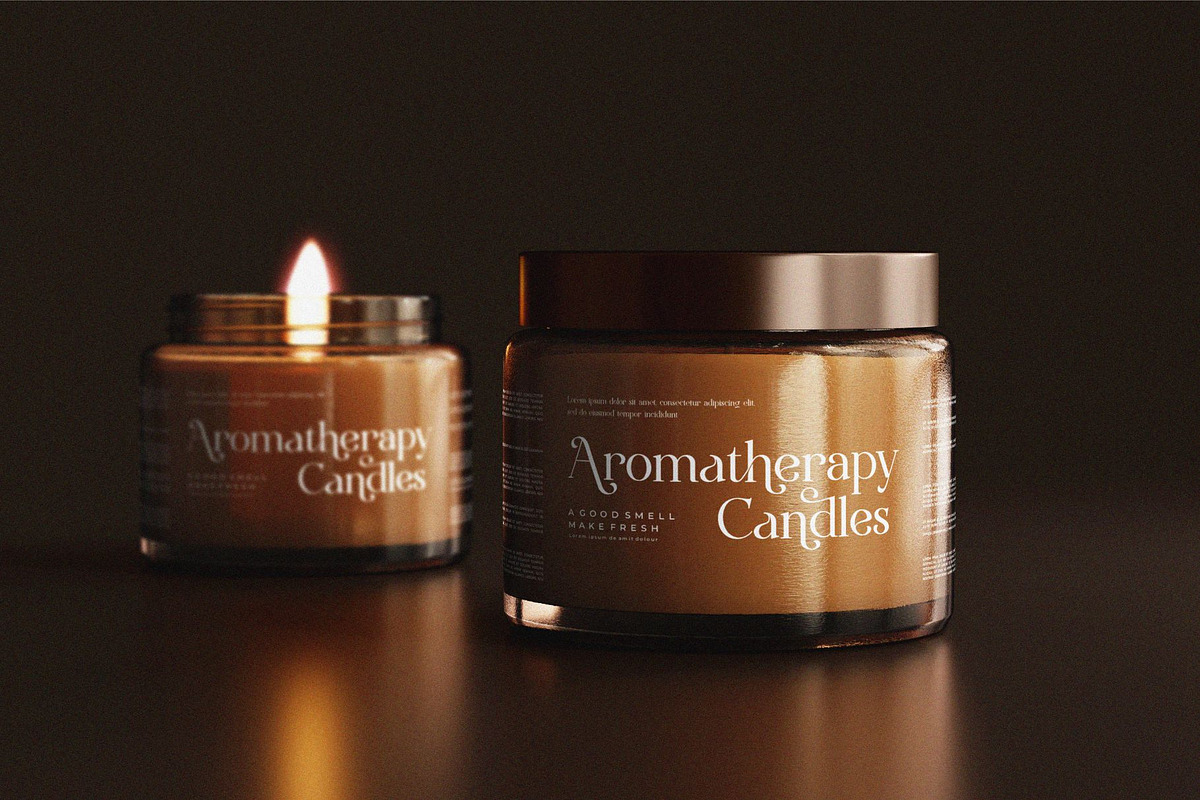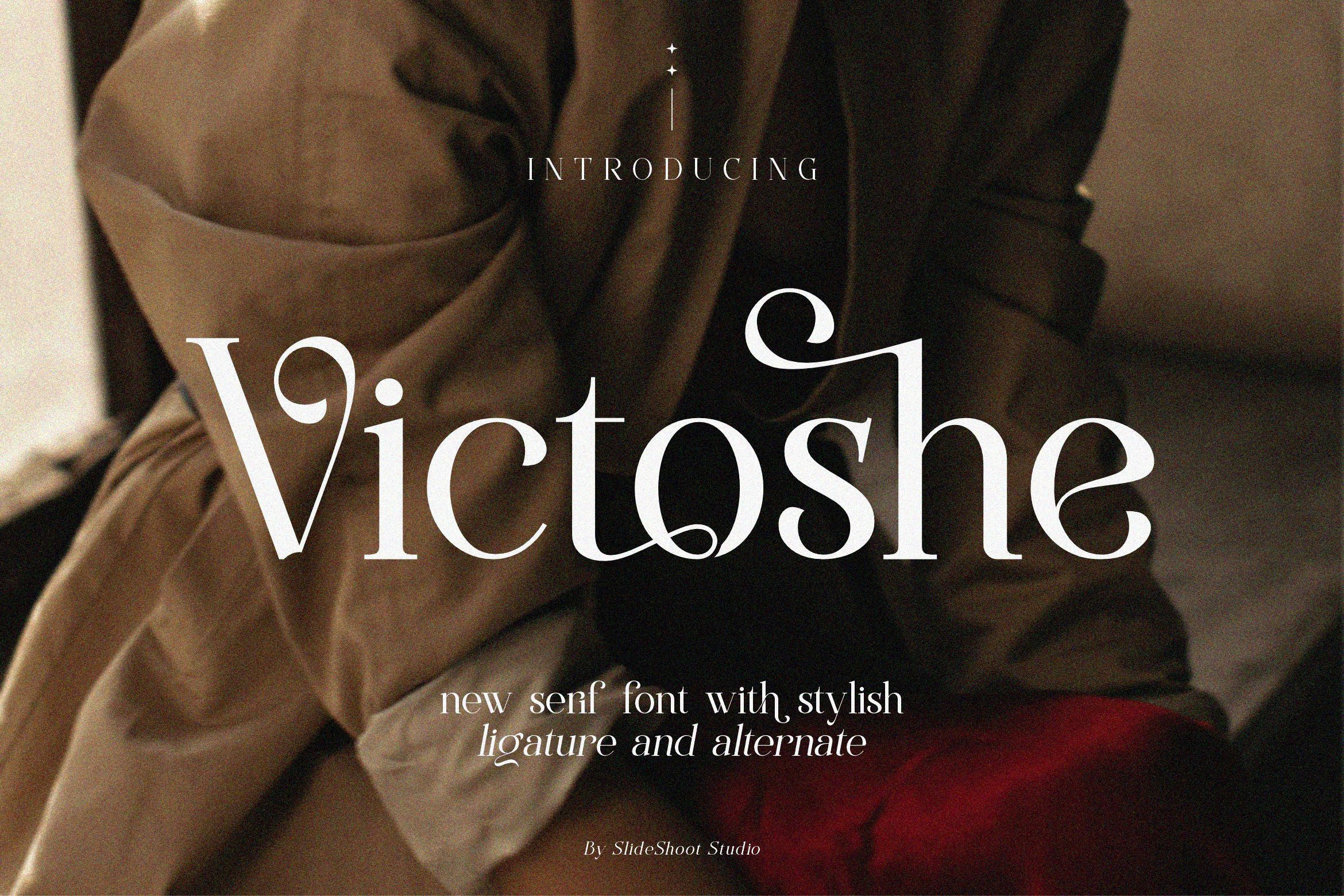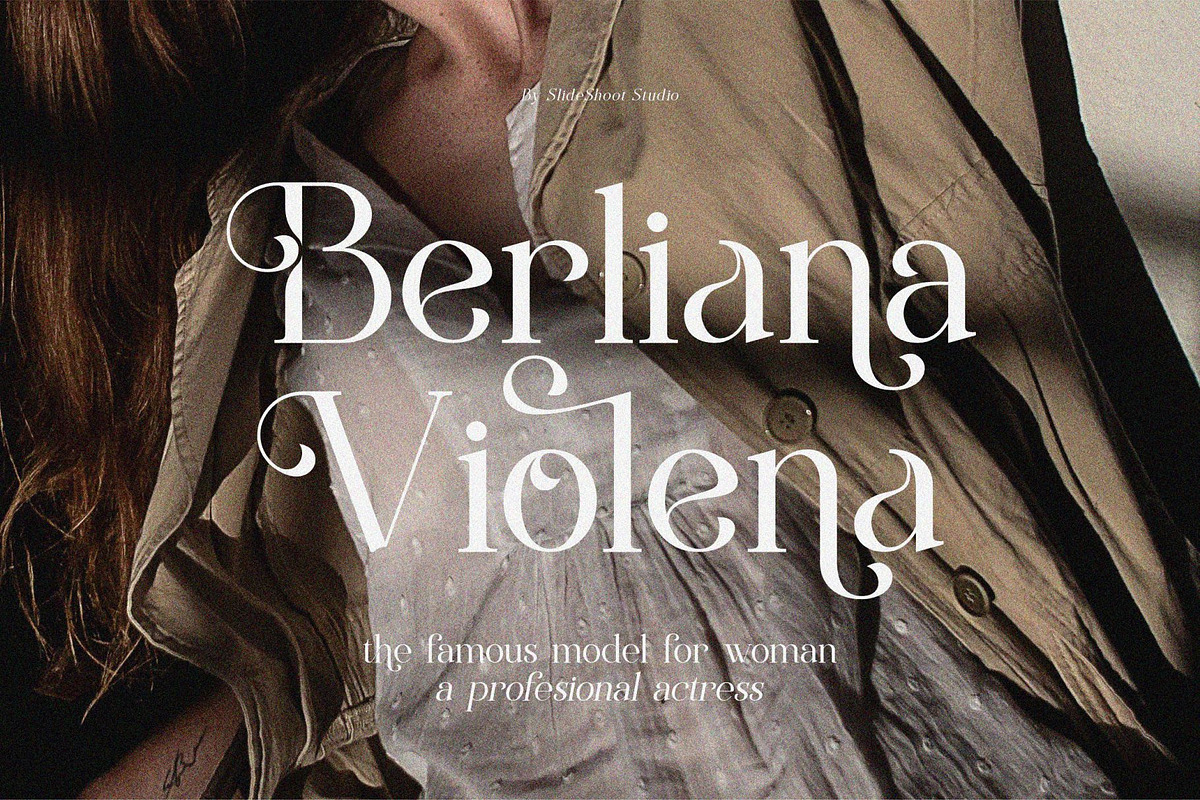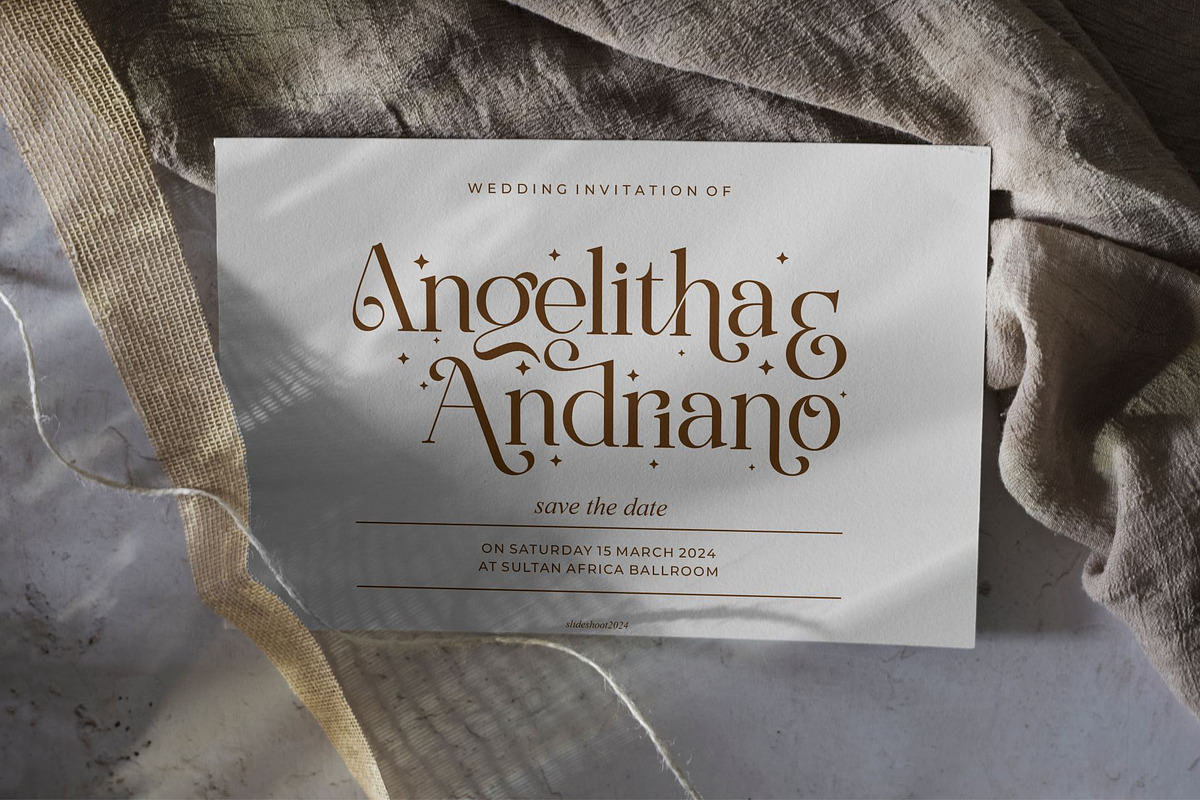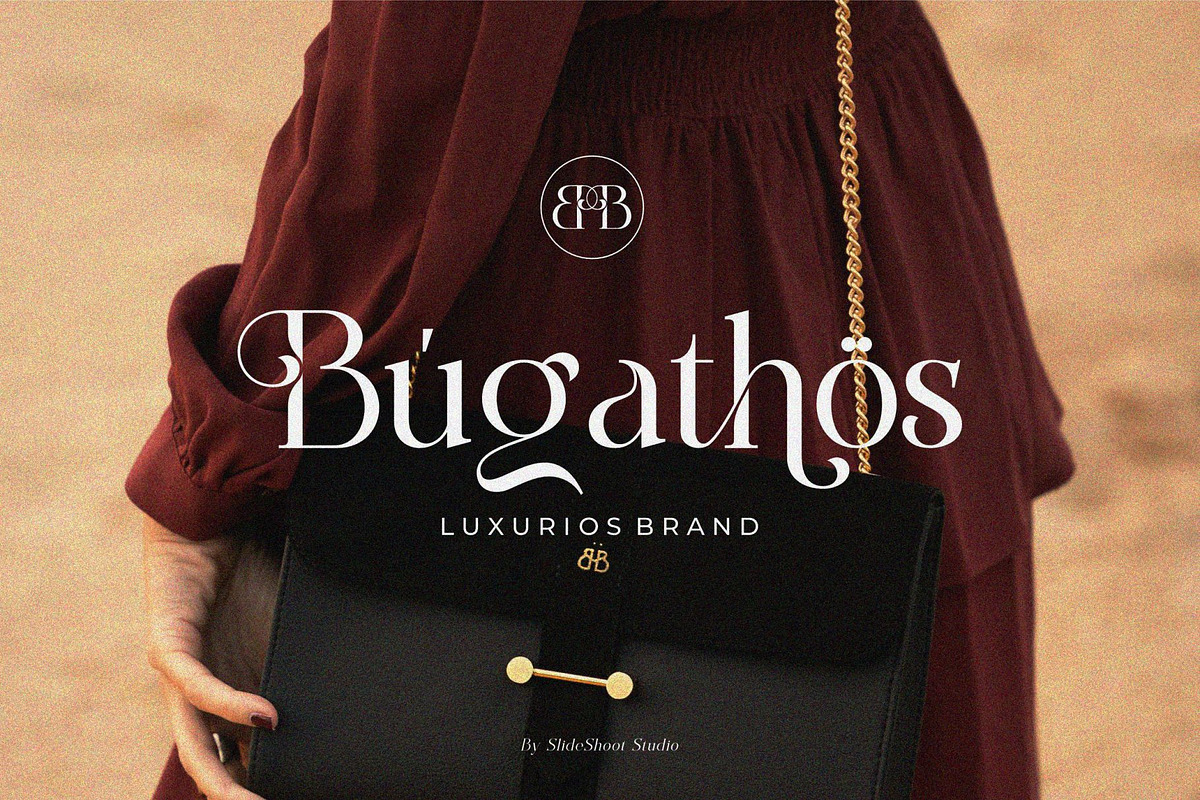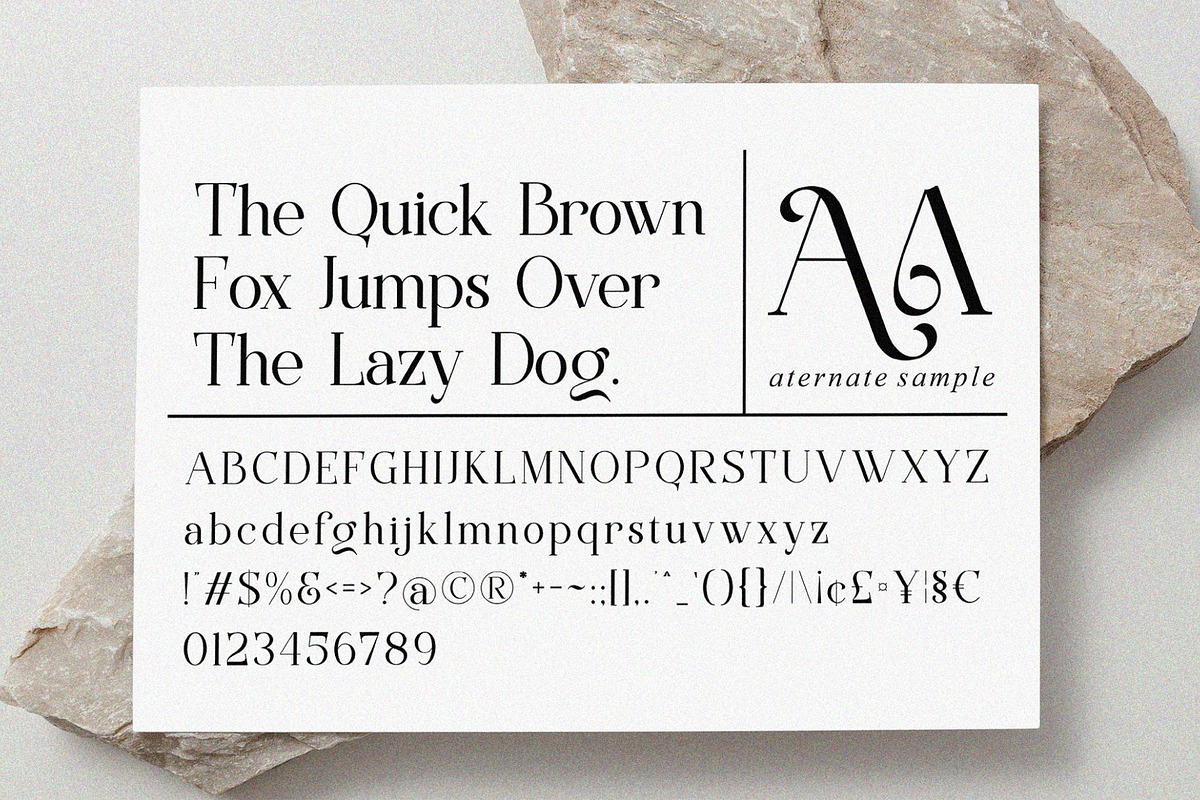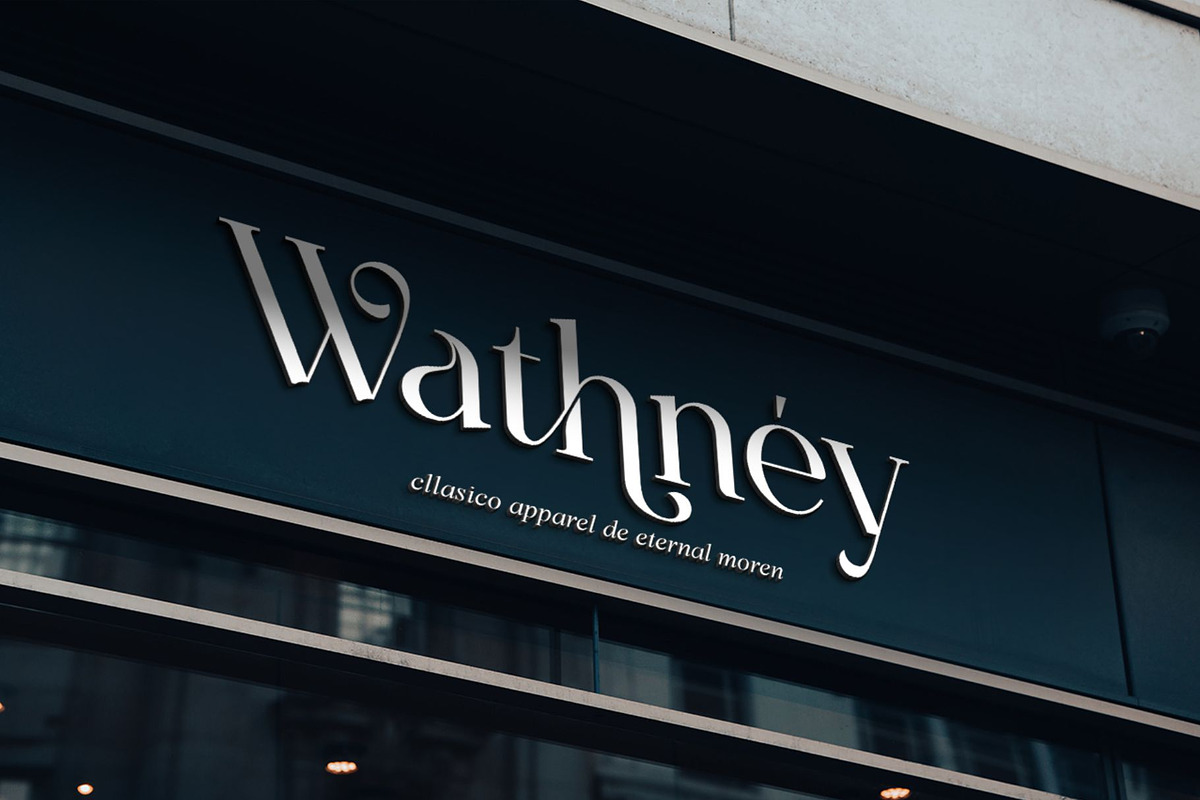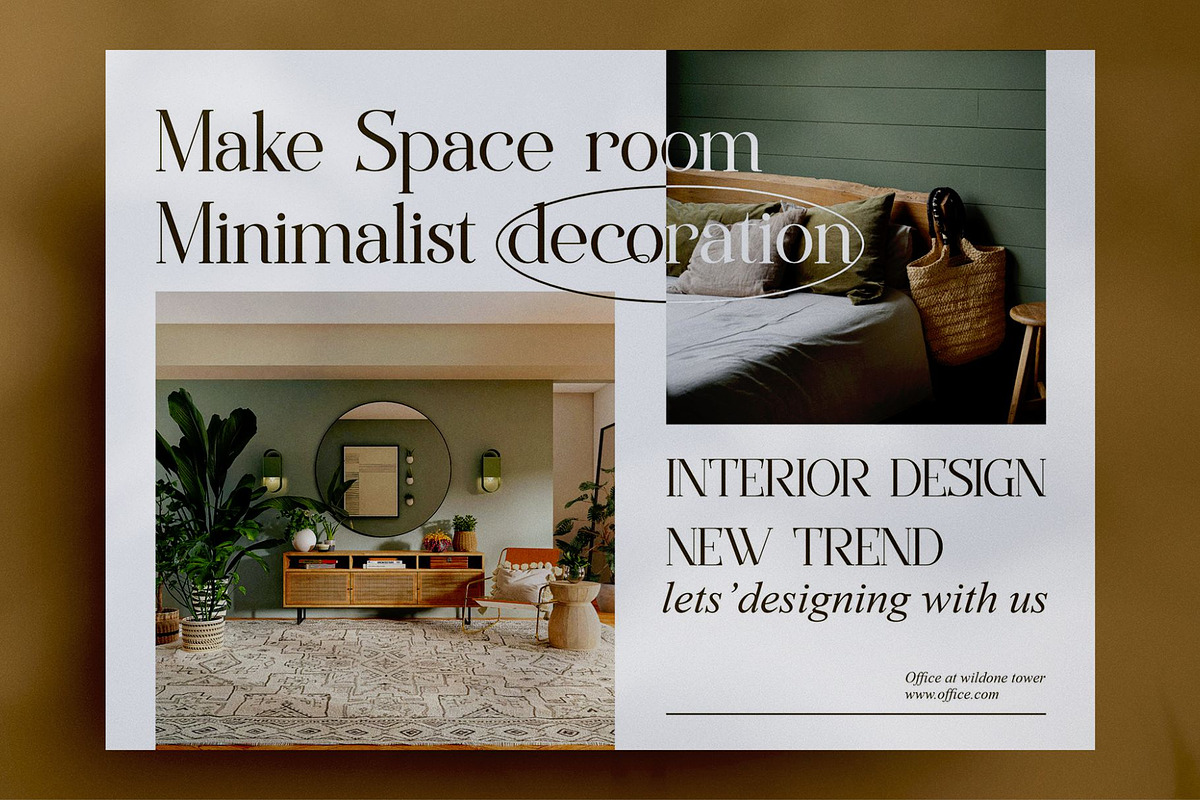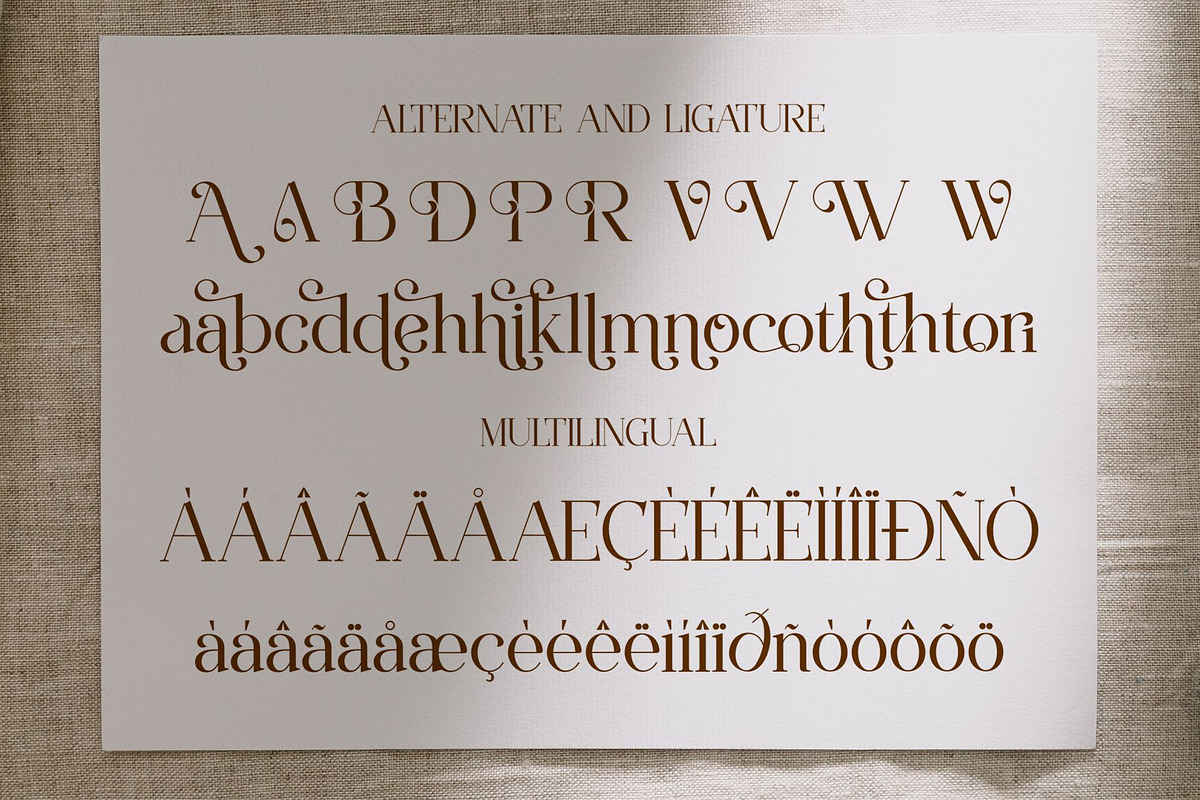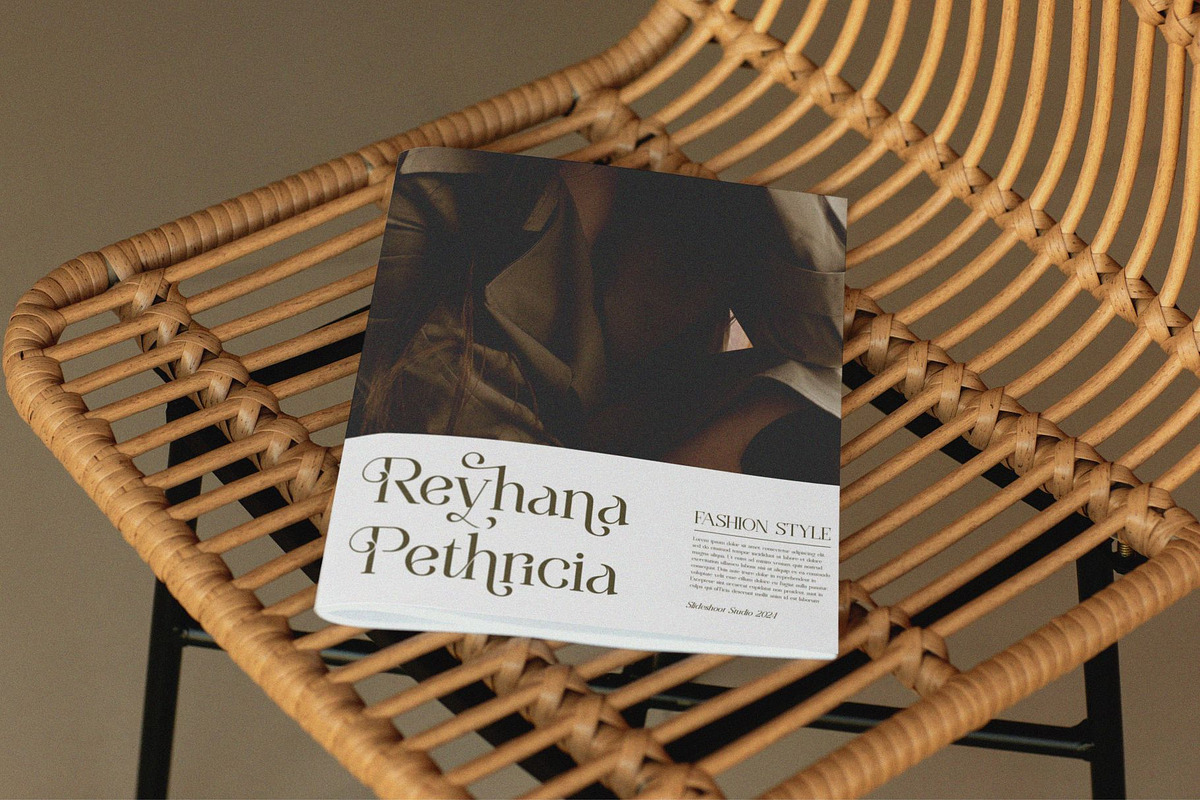
Victoshe || Ligature Serif Font
Victoshe Serif is an elegant and classy font type for all branding and logo designs. This modern and classy Serif font has a beautiful character. This font is suitable for invitation card designs, cool logos, movie titles, movie names, business cards, book titles, brand names, and various other designs. Victoshe Serif is a smooth serif font that exudes sophistication and the moment. Its stylish alternations and ligatures make this font a perfect partner for any project.